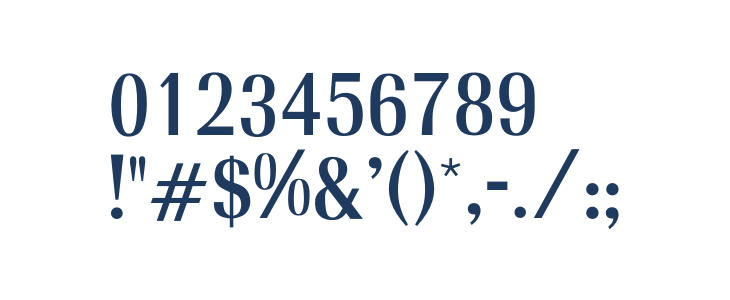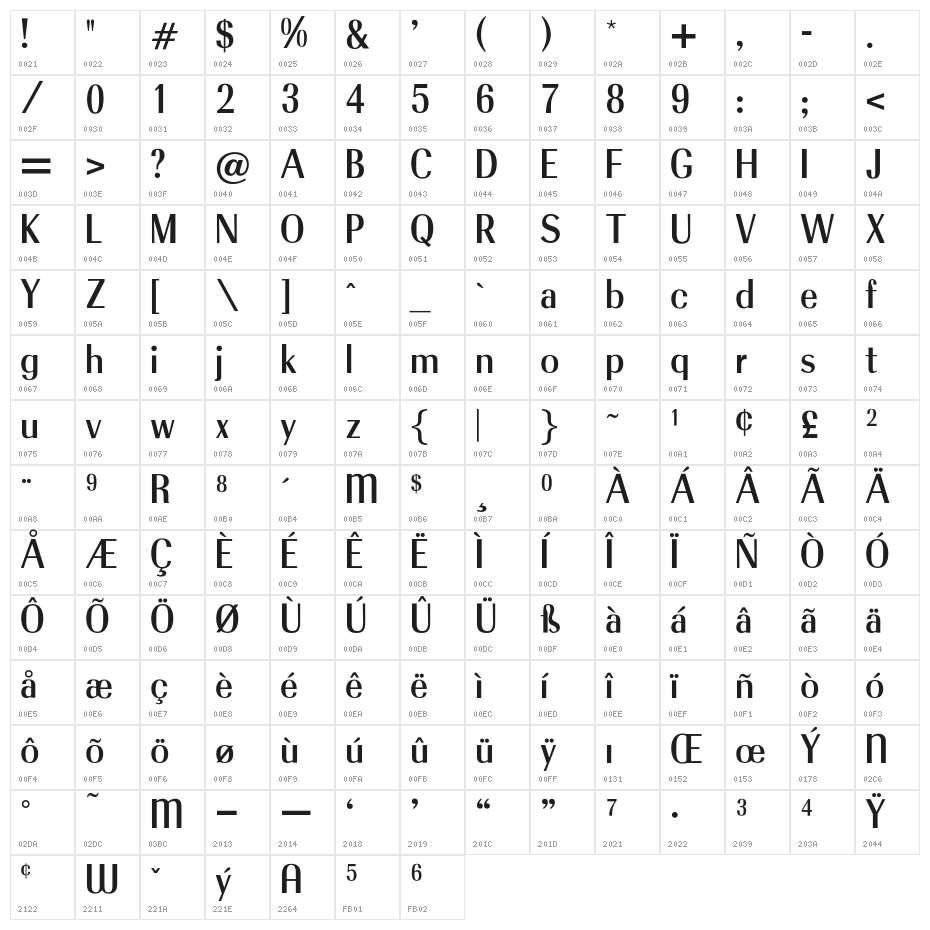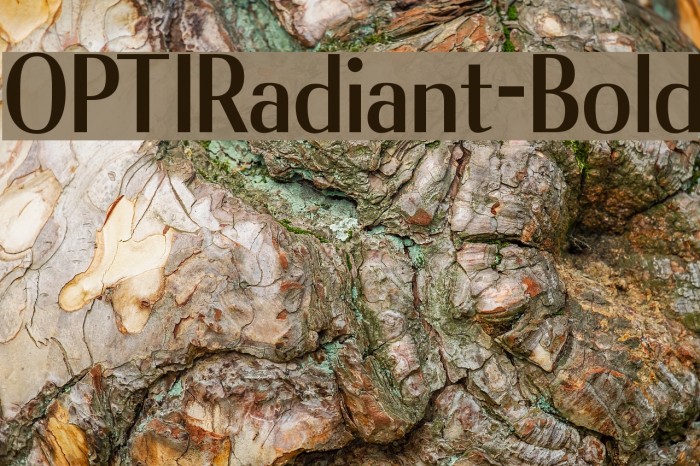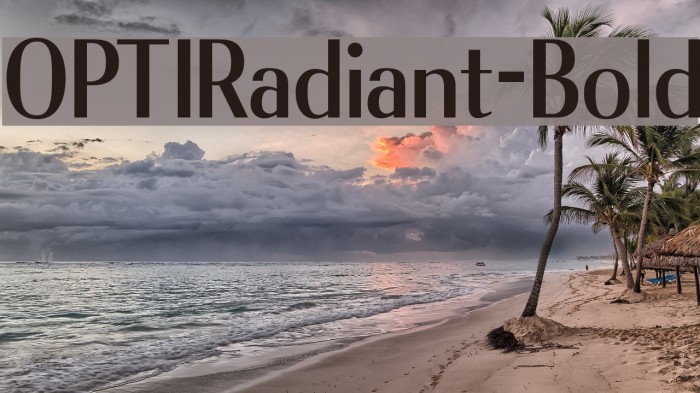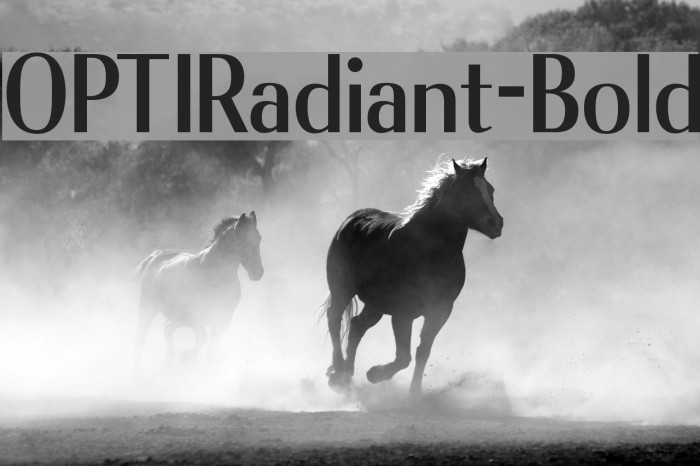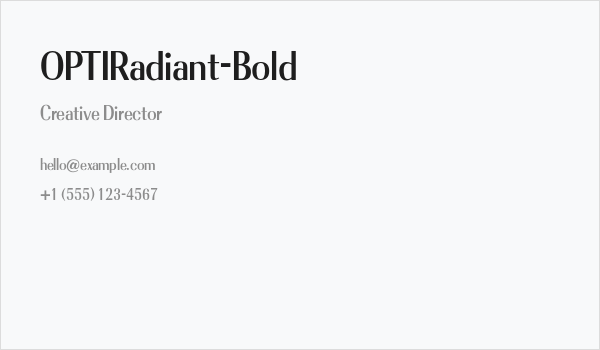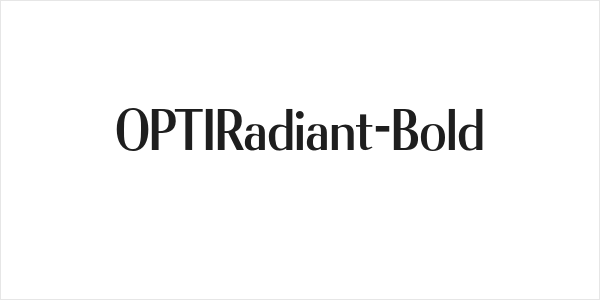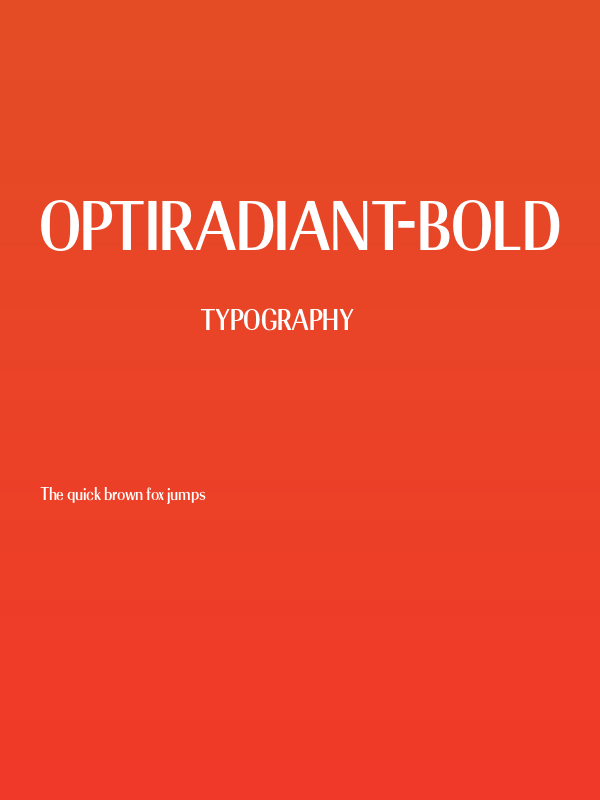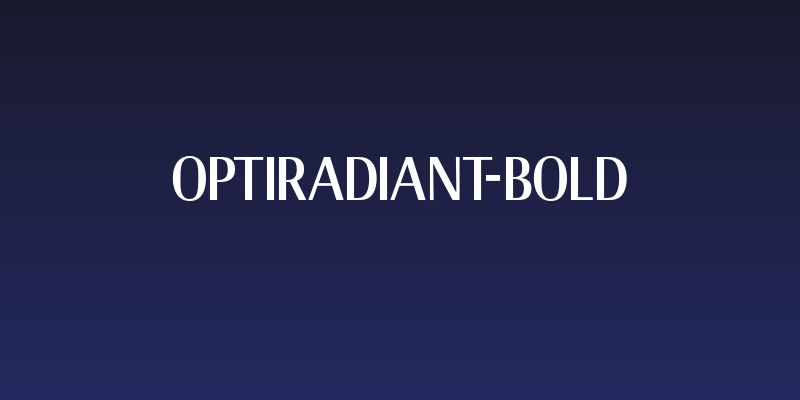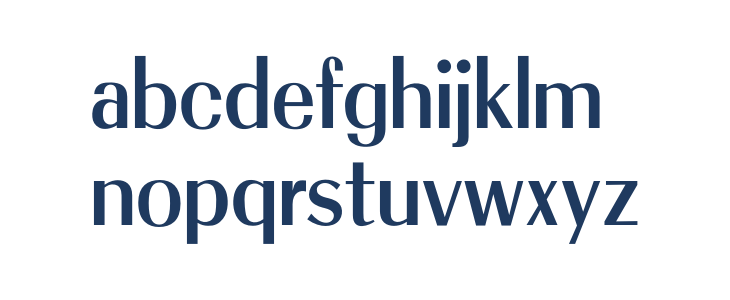
OPTIRadiant-Bold Font
OPTIRadiant-Bold Description
This font exhibits a bold and commanding presence with its strong, clean lines and modern aesthetic. The uppercase letters are tall and slightly condensed, giving a sense of authority and elegance. The lowercase letters maintain a consistent style, offering a harmonious balance between the characters. The numerals are clear and easily readable, making them suitable for various applications. Special characters are well-defined, ensuring versatility in design projects. The overall appearance is sleek and professional, making it ideal for impactful headlines and branding.